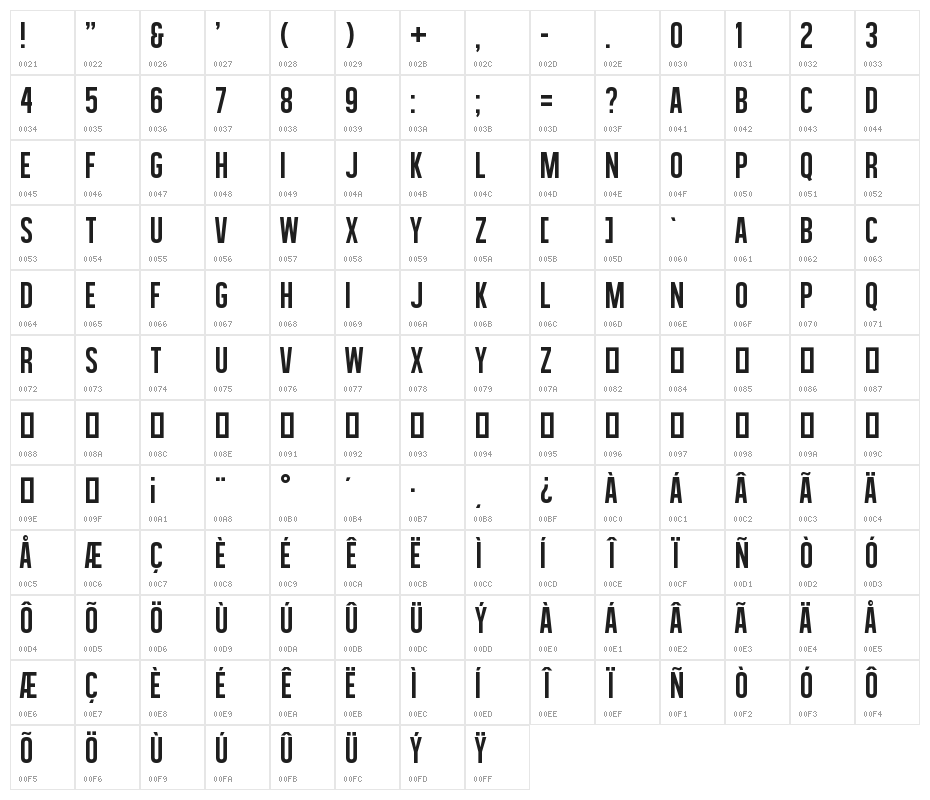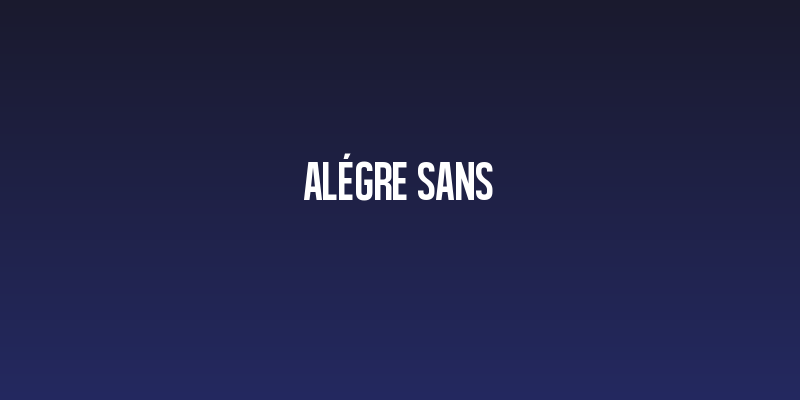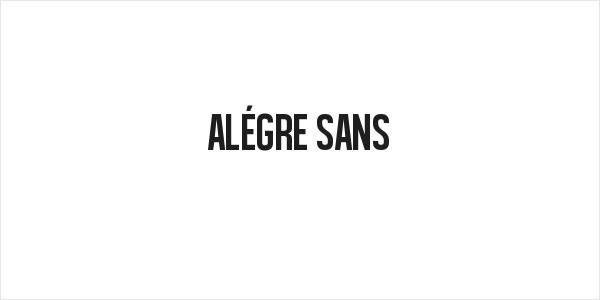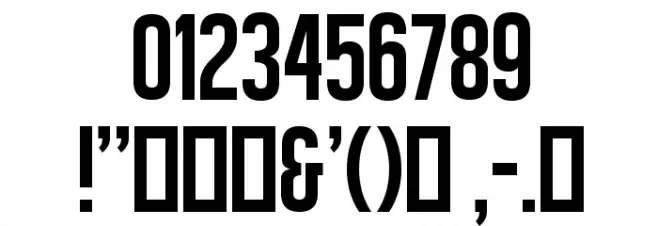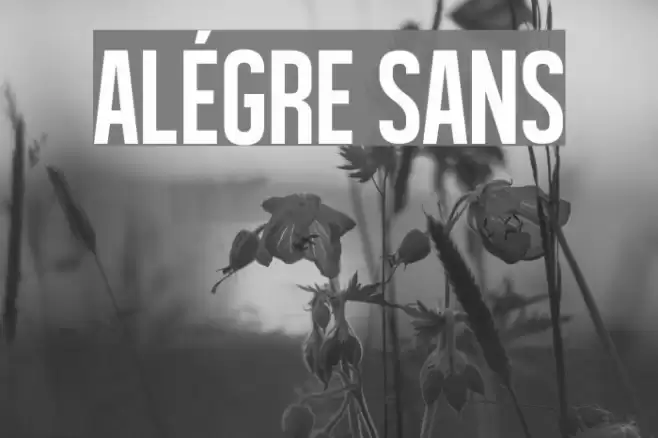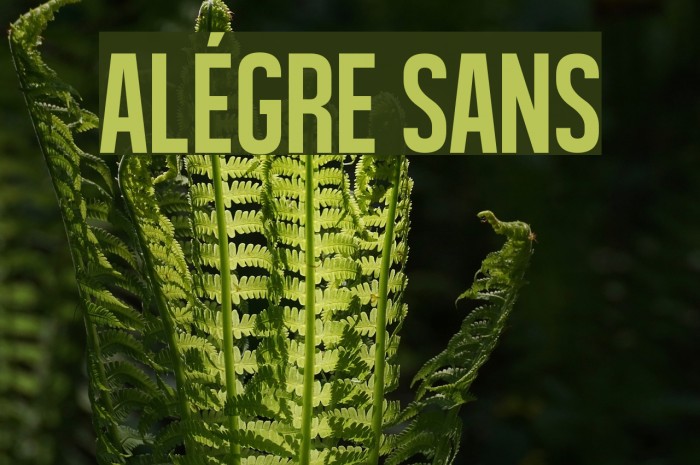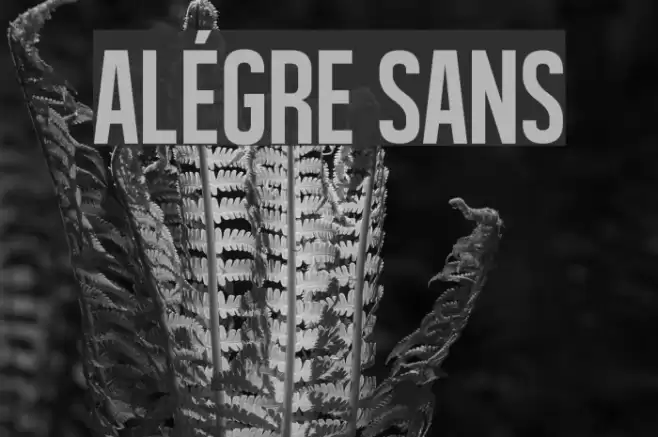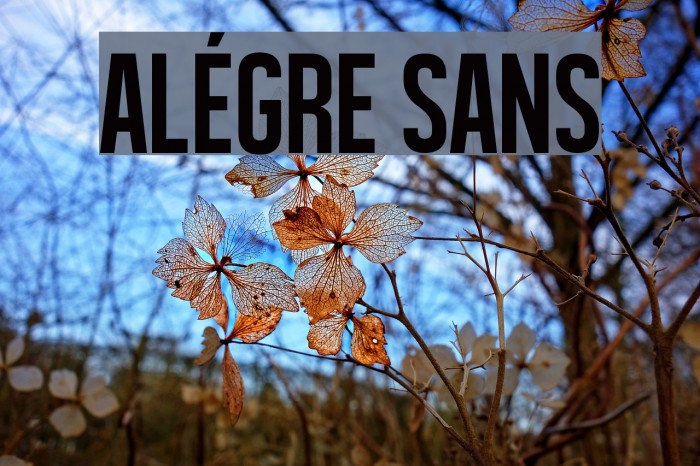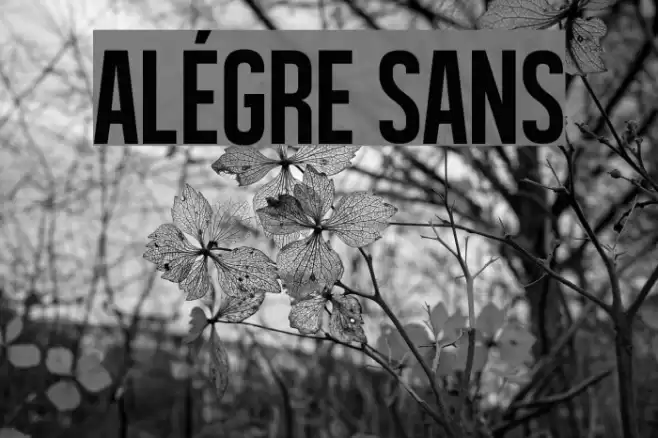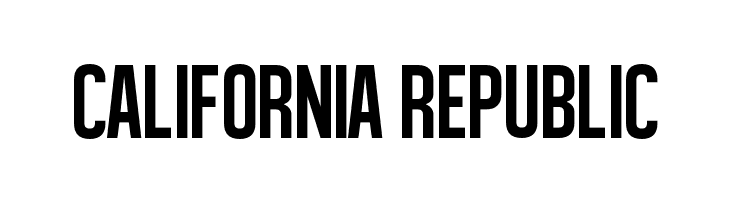
Alégre Sans Font
Alégre Sans Description
This font features a bold and assertive sans-serif style, characterized by its strong vertical lines and uniform stroke width. The uppercase letters are tall and commanding, while the lowercase letters maintain a consistent height, providing a cohesive look. The numerals are clear and easy to read, making them suitable for various applications. Special characters are designed with the same boldness, ensuring they stand out. The overall appearance is modern and impactful, making it ideal for attention-grabbing designs.
| Proposed Projects | Ideal for headlines, posters, branding, and any project requiring a strong visual impact. |